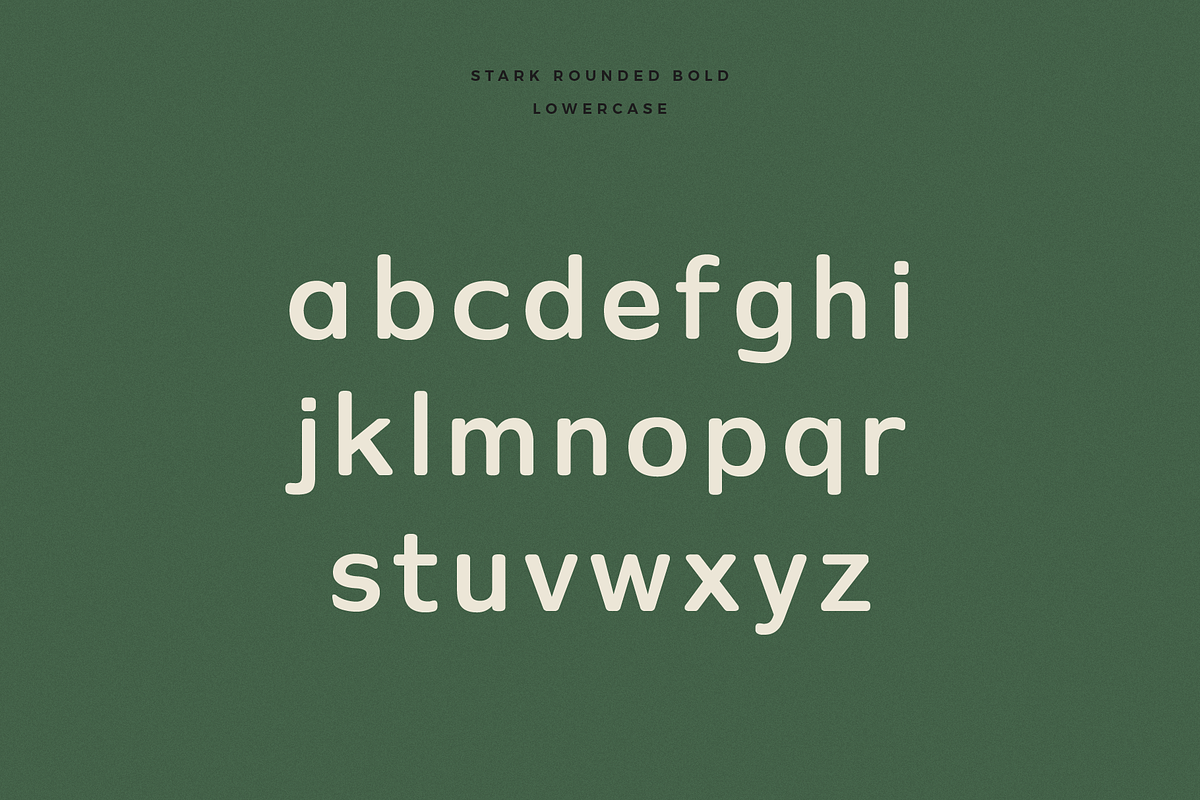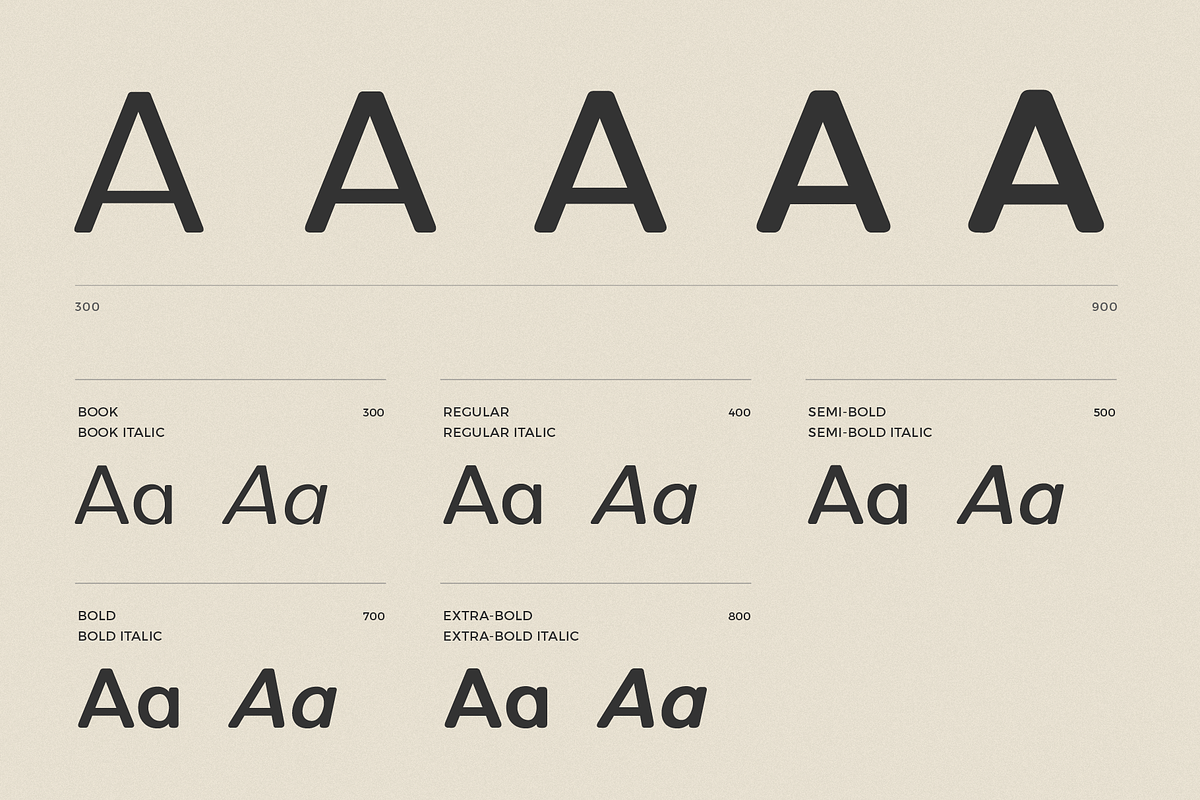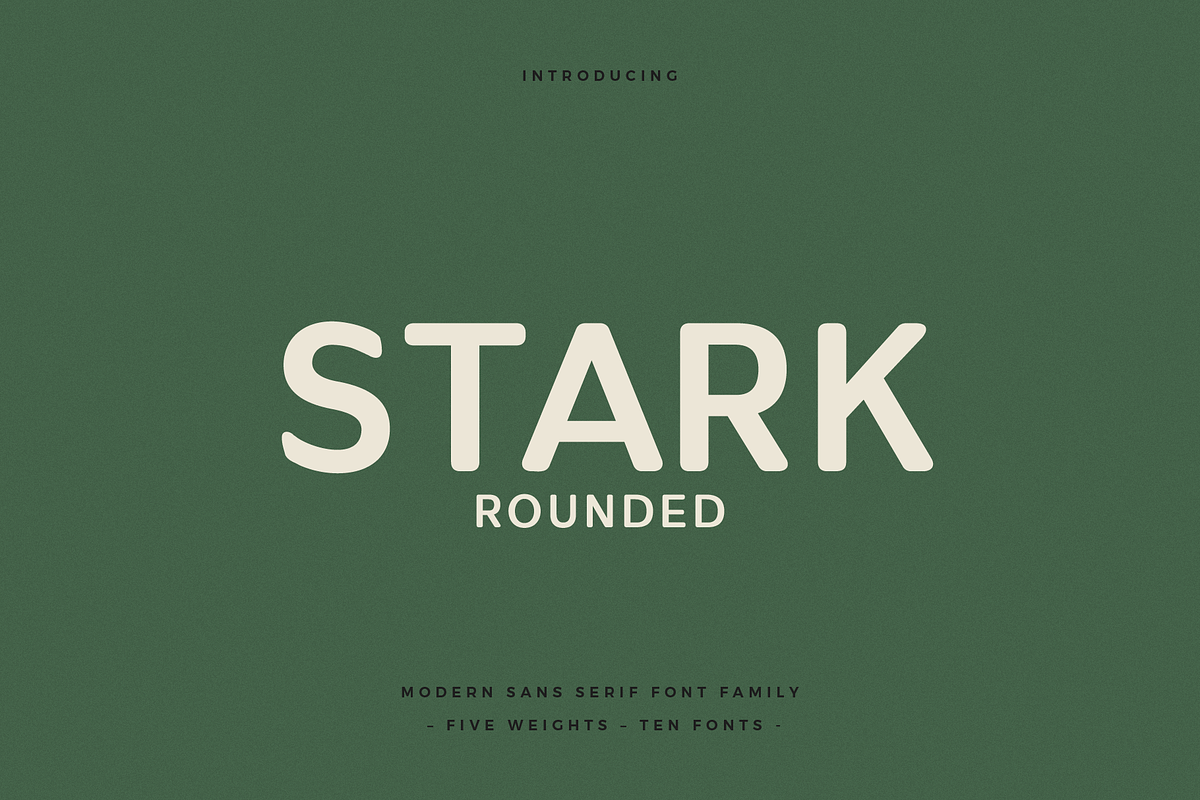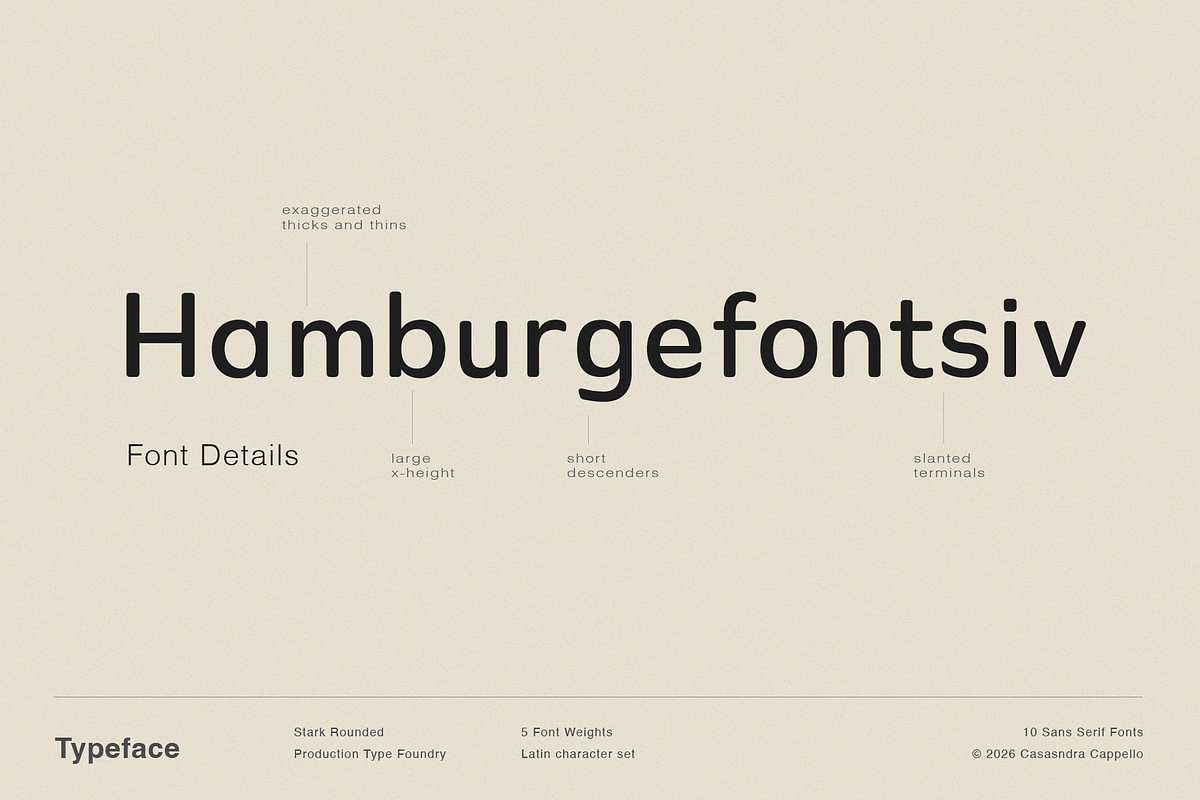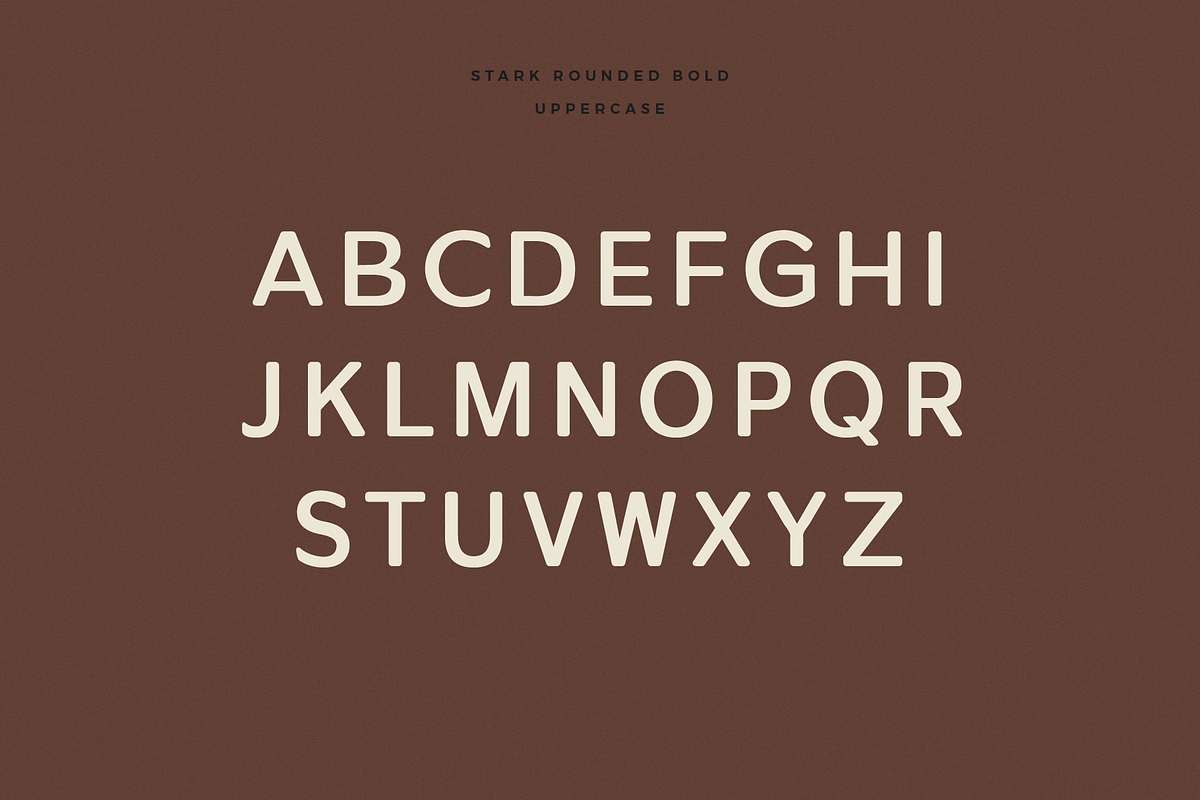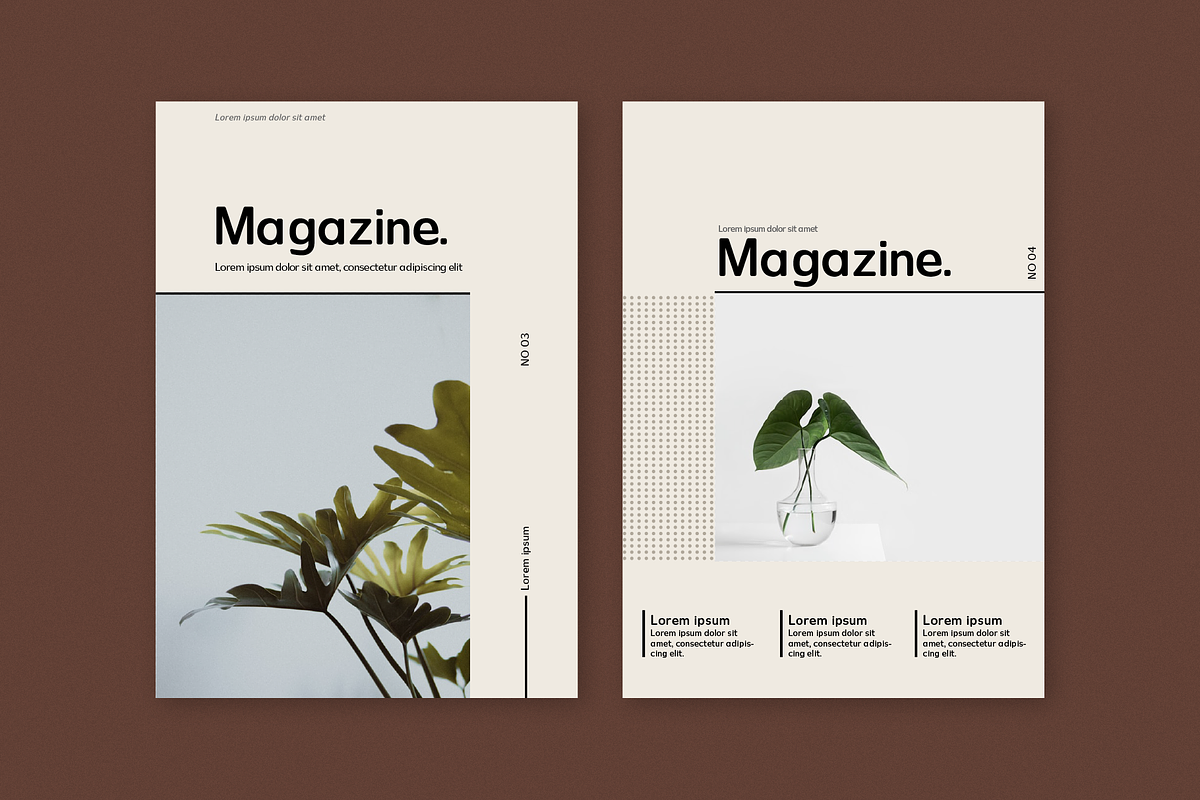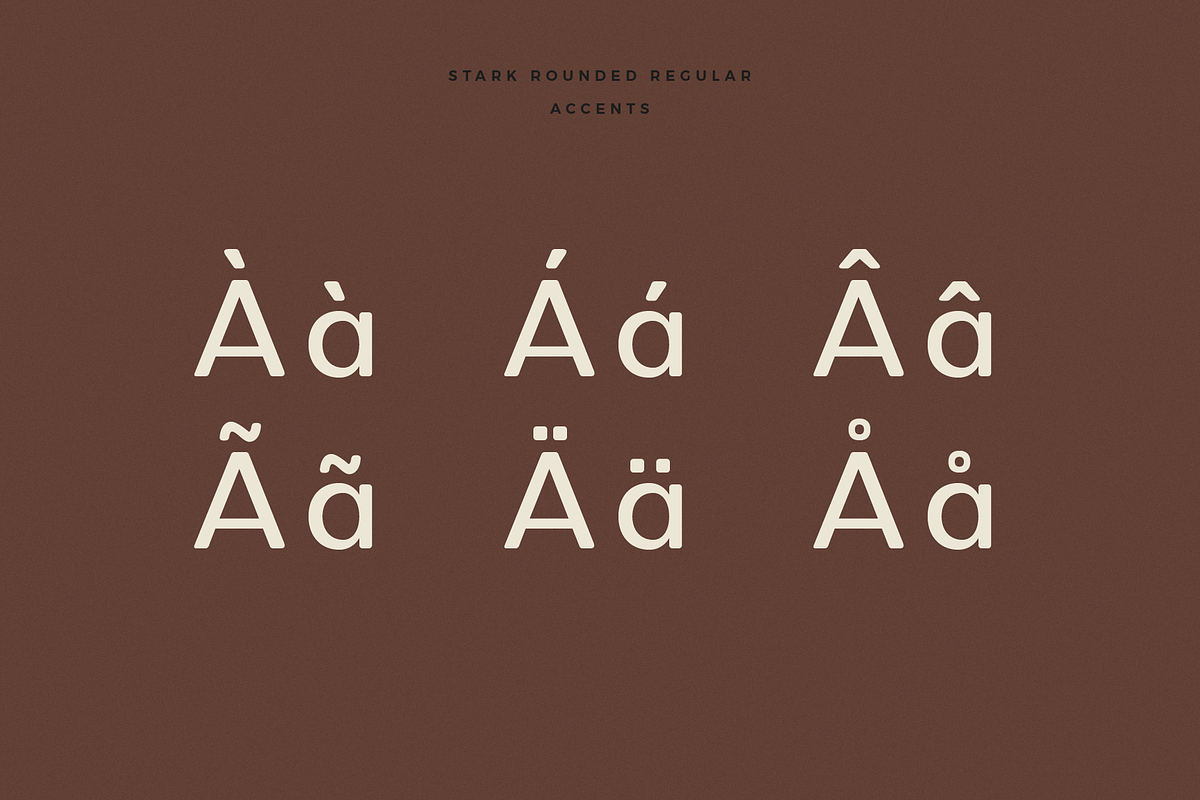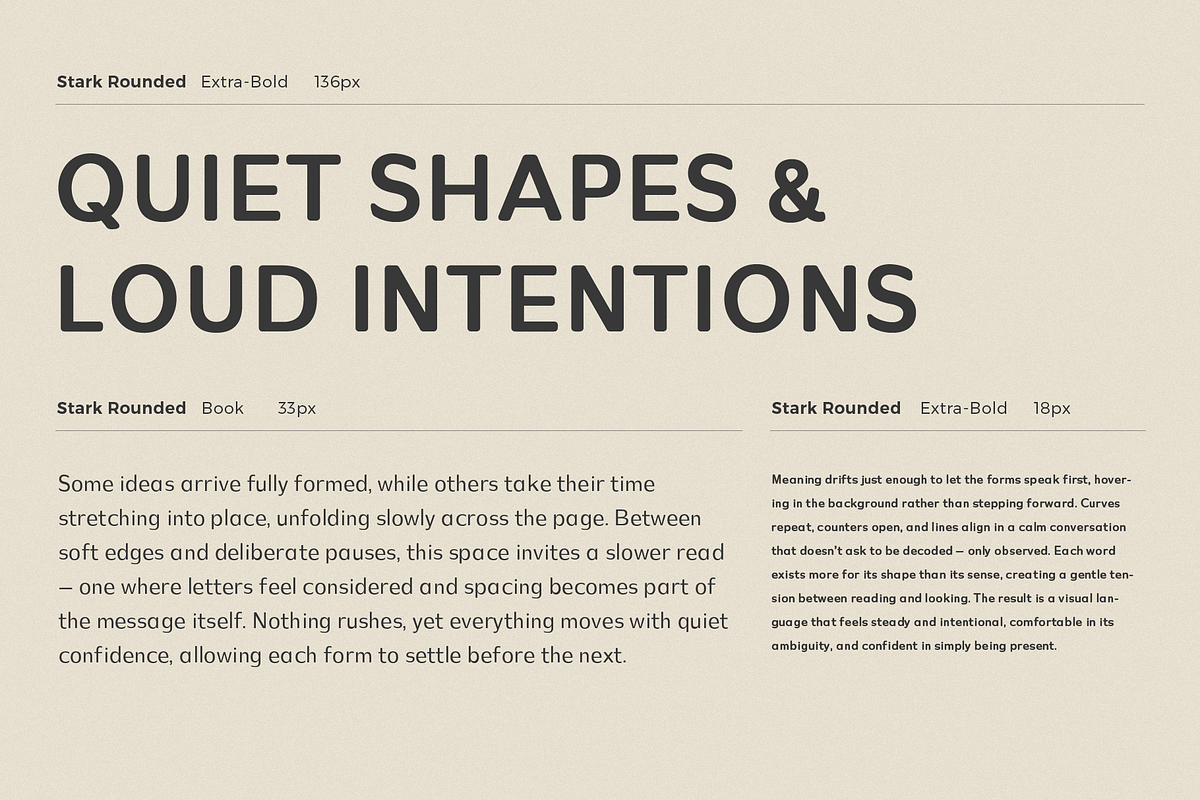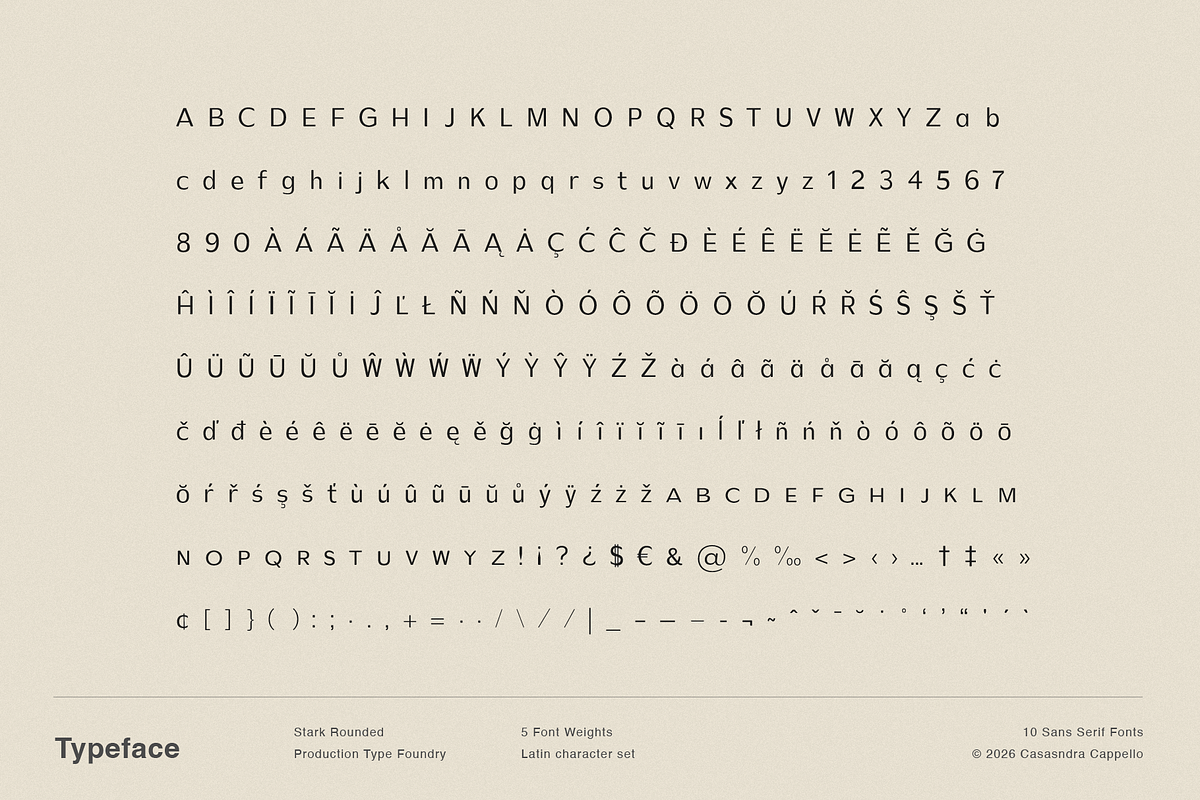
Stark Rounded - A Modern Sans Serif
Stark Rounded is a modern sans serif typeface that can be used for both headers and body copy. This font family includes all Latin characters (including accents), numbers, special characters, and punctuation.